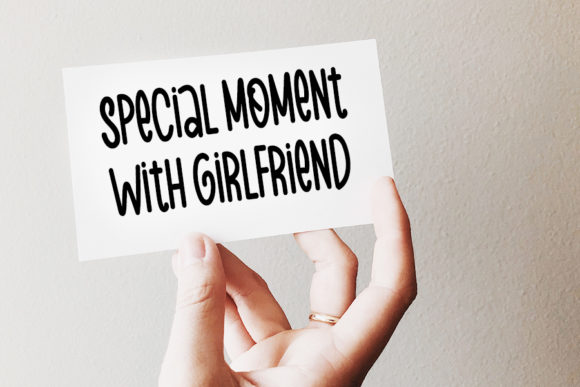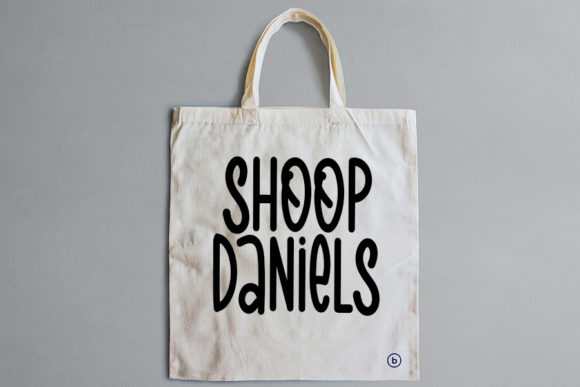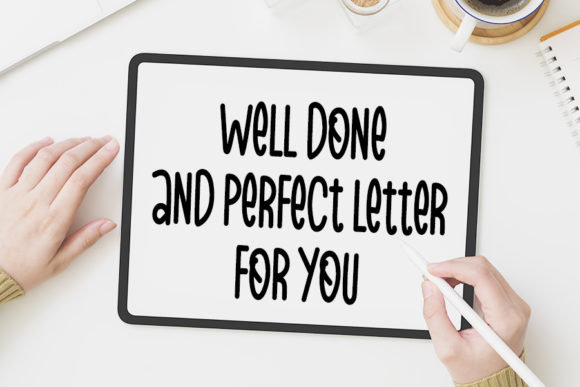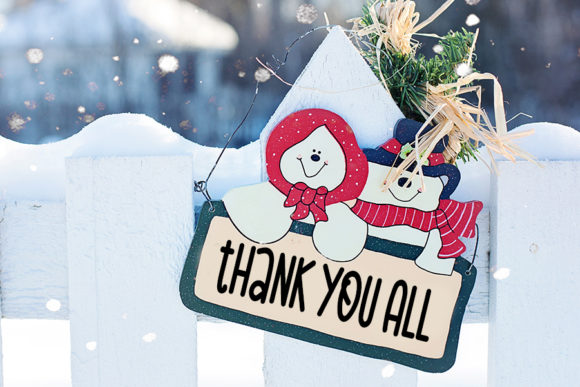
Dinner at Night Font: A Simple yet Versatile Display Font
Are you looking for a font that can add a touch of elegance and sophistication to your design projects? Look no further than the Dinner at Night font. This simple, all-round, and neat paint-brushed display font is perfect for designers and crafters who want to create stunning visuals with a personal touch. In this article, we’ll take a closer look at the Dinner at Night font, its features, and how you can use it to elevate your designs.
What is Dinner at Night Font?
Dinner at Night is a display font that features a unique, paint-brushed style that gives it an organic and clean look. The font is designed to be incredibly flexible, making it suitable for a wide range of design projects, from branding and advertising to packaging and digital media. Its simplicity and neatness make it easy to read and understand, while its paint-brushed texture adds a touch of warmth and personality.
Key Features of Dinner at Night Font
- Simple and Neat Design: The Dinner at Night font features a simple and neat design that makes it easy to read and understand.
- Paint-Brushed Texture: The font’s paint-brushed texture gives it a unique, organic look that adds a touch of warmth and personality.
- All-Round Flexibility: The font is designed to be incredibly flexible, making it suitable for a wide range of design projects.
- Clean and Legible: The font is clean and legible, making it perfect for use in body text, headings, and titles.
How to Use Dinner at Night Font in Your Designs
The Dinner at Night font is perfect for designers and crafters who want to add a touch of elegance and sophistication to their designs. Here are some ways you can use the font in your projects:
- Branding and Advertising: Use the Dinner at Night font to create stunning logos, advertisements, and marketing materials that grab attention.
- Packaging Design: Add a touch of elegance to your packaging designs with the Dinner at Night font.
- Digital Media: Use the font to create engaging digital content, such as social media graphics, blog posts, and email newsletters.
- Crafting and DIY Projects: The Dinner at Night font is perfect for crafters and DIY enthusiasts who want to add a personal touch to their projects.
Why Choose Dinner at Night Font?
There are many fonts available that offer a similar style to Dinner at Night, but here are some reasons why you should choose this font for your projects:
- Unique and Eye-Catching: The Dinner at Night font is unique and eye-catching, making it perfect for designers who want to stand out from the crowd.
- Easy to Read: The font is easy to read and understand, making it perfect for use in body text, headings, and titles.
- Flexible and Versatile: The font is incredibly flexible and versatile, making it suitable for a wide range of design projects.
| Font Name | Dinner at Night Font |
| Author | FL Space |
In conclusion, the Dinner at Night font is a simple yet versatile display font that is perfect for designers and crafters who want to add a touch of elegance and sophistication to their designs. Its organic and clean style makes it incredibly flexible, and its paint-brushed texture adds a touch of warmth and personality. Whether you’re working on a branding project, packaging design, or digital media, the Dinner at Night font is a great choice.